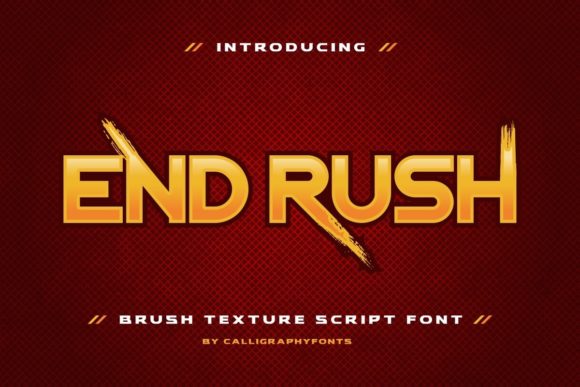
**End Rush Font: Unleash the Power of Speed and Fire in Your Designs**
In a world where visual impact reigns supreme, End Rush Font emerges as a blazing inferno, ready to ignite your creative vision. This display font is not just a collection of letters; it's a blazing torrent of energy, a visual symphony that dances with speed and fire.
Crafted by the masterminds at CalligraphyFonts, End Rush Font is a modern and strong wide sans that commands attention with its fiery edges. It's a font that refuses to be ignored, demanding to be seen, felt, and experienced.
Whether you're a branding expert, a digital artist, or a greeting card enthusiast, End Rush Font is your ultimate weapon to leave an unforgettable mark. Its versatility knows no bounds, adapting seamlessly to your creative endeavors.
**Ignite Your Branding with Fiery Passion**
In the realm of branding, End Rush Font is a blazing beacon, drawing eyes and captivating hearts. Its unique design adds an instant touch of intensity and excitement to your logo, business cards, and marketing materials. Imagine your brand emblazoned with the fiery essence of End Rush, commanding attention and leaving a lasting impression.
**Forge Digital Masterpieces with Blazing Strokes**
For the digital artists, End Rush Font is a digital paintbrush dipped in liquid fire. Unleash your creativity as you craft stunning website designs, social media graphics, and digital illustrations. The fiery edges of End Rush Font will add a dynamic and captivating element to your digital creations, leaving your audience mesmerized.
**Illuminate Your Greetings with Firelight's Glow**
The greeting card makers, rejoice! End Rush Font is your secret weapon to create cards that ignite emotions and warm hearts. Let your heartfelt messages dance across the page, enveloped in the fiery glow of End Rush Font. From birthday wishes to heartfelt thank you notes, your greetings will carry a touch of warmth and passion that's sure to leave a lasting impression.
**Unlock the Secrets of End Rush Font's Fiery Embrace**
End Rush Font is more than just a font; it's an experience waiting to be discovered. Explore its PUA-encoded magic, granting you effortless access to a treasure trove of glyphs and swashes. Unleash your creativity and let the fiery spirit of End Rush Font guide you to design masterpieces that leave the world in awe.
Harness the power of End Rush Font today and let your creative vision soar to new heights. Ignite your designs with the fury of fire and leave an unforgettable mark on the world. Embrace the End Rush Font and unleash the blazing inferno within!